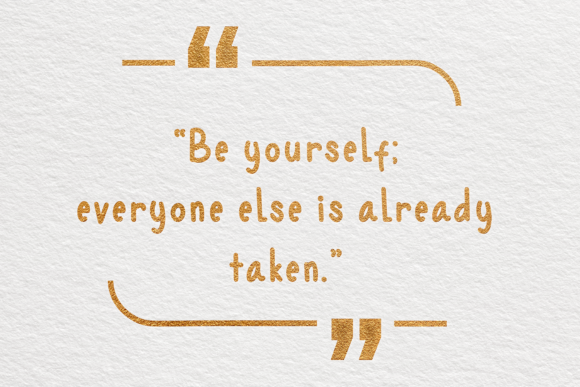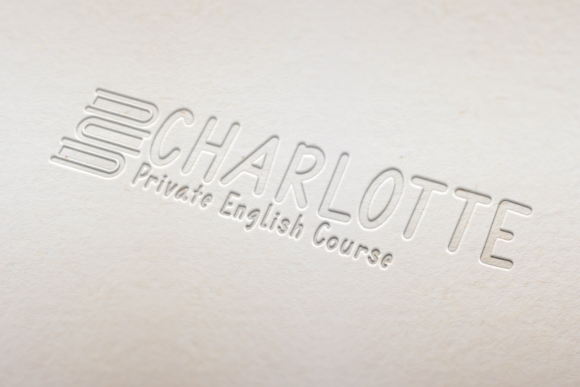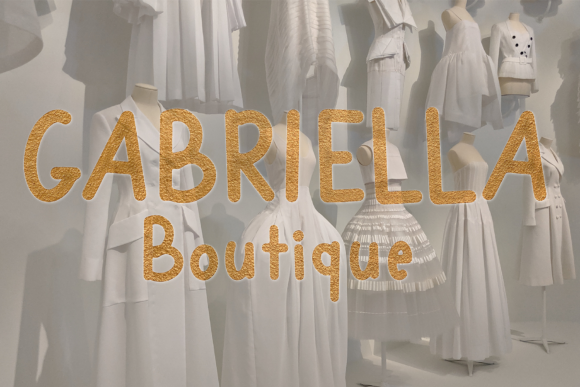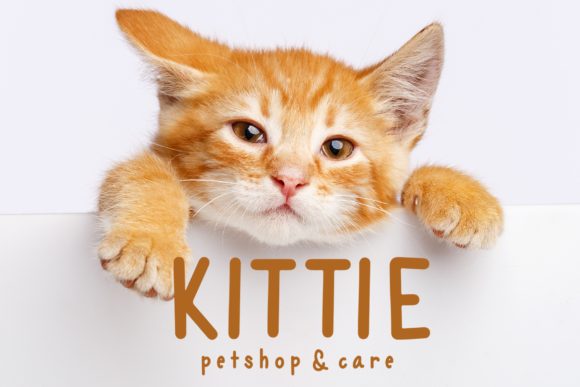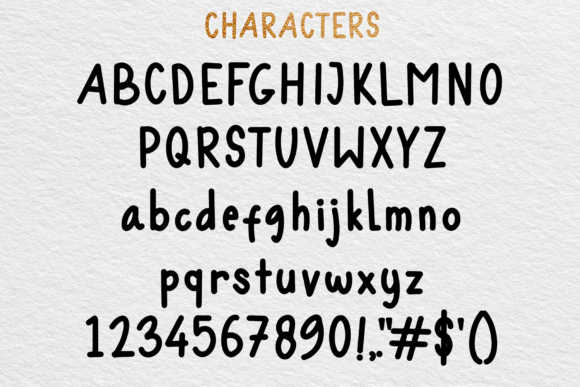
Introduction to Gracelyn Hand Font
Gracelyn is a whimsical handwritten font with a relaxed theme.
Use it to make your ideas even more realistic and create spectacular designs .
Key Features of Gracelyn Hand Font
Why Choose Gracelyn Hand Font?
Gracelyn Hand Font offers exceptional quality and versatility, making it a valuable addition to your design toolkit. Whether you’re creating for personal projects or commercial use, Gracelyn Hand Font delivers professional results.